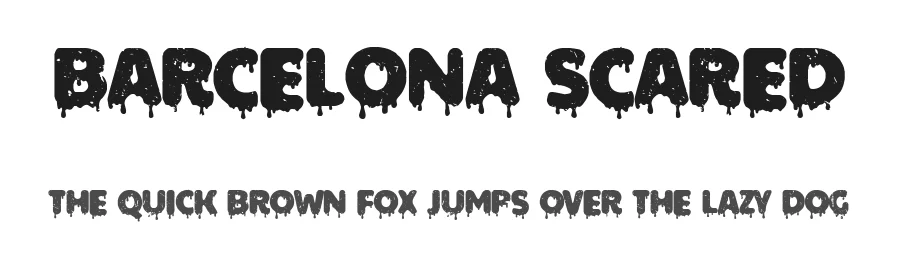
About PostCrypt Font
PostCrypt is a decorative font. It includes 399 glyphs, TTF (TrueType) format, and 238 languages. PostCrypt is free to download; check the license details on this page before commercial use. Decorative fonts like PostCrypt work best for logos, posters, packaging, and standout headlines.
PostCrypt Font is a decorative font that shines as a display or heading face. Pair it with a clean sans-serif or serif font for body text β the contrast creates a clear hierarchy while the two styles stay balanced and easy to read.
PostCrypt Font
PostCrypt Font is a decorative typeface, ideal for logos, invitations, branding, and creative projects.